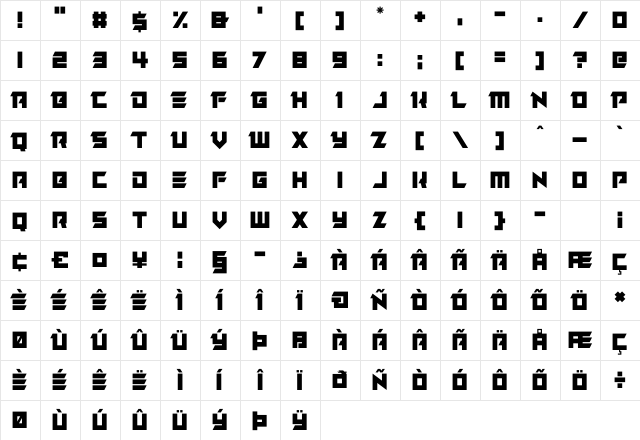
Robot Rangers Regular Free Font
Robot Rangers Regular
Designer: Darrell Flood
Design Context for Robot Rangers
Robot Rangers is a composed and adaptable typeface that performs quietly and consistently across a wide range of design contexts.